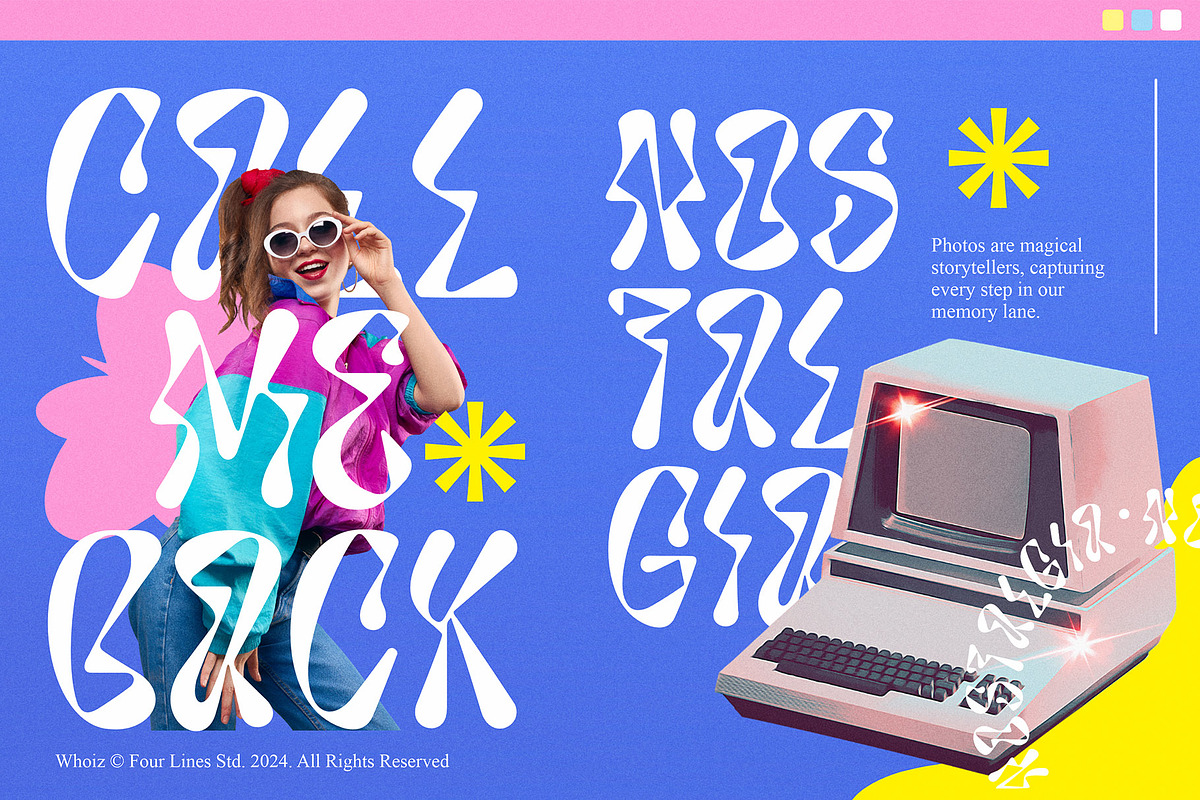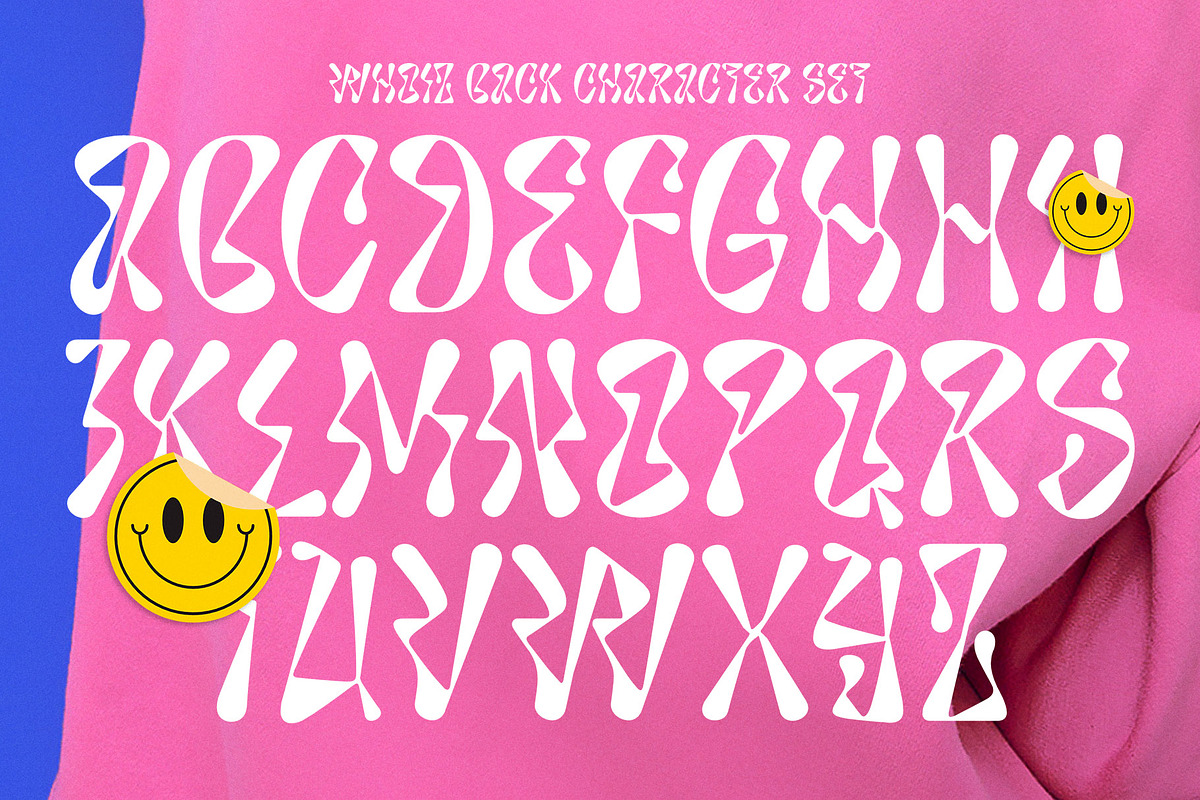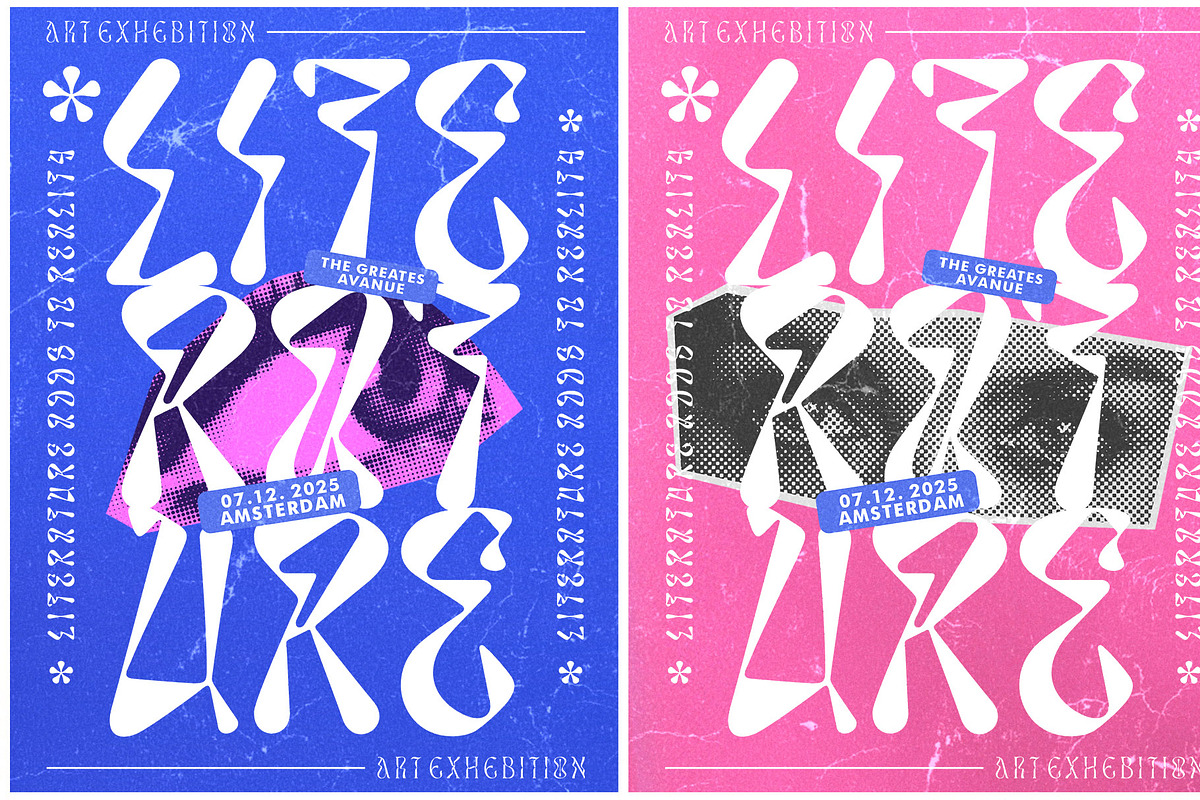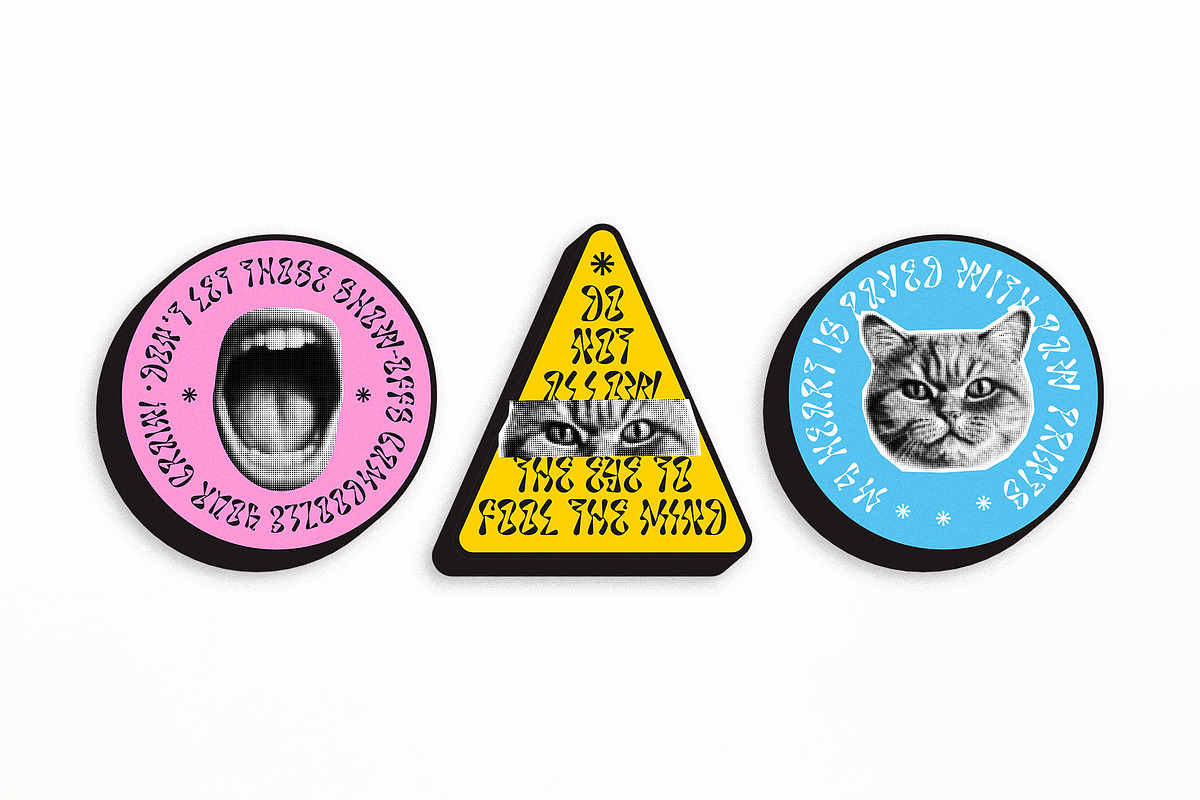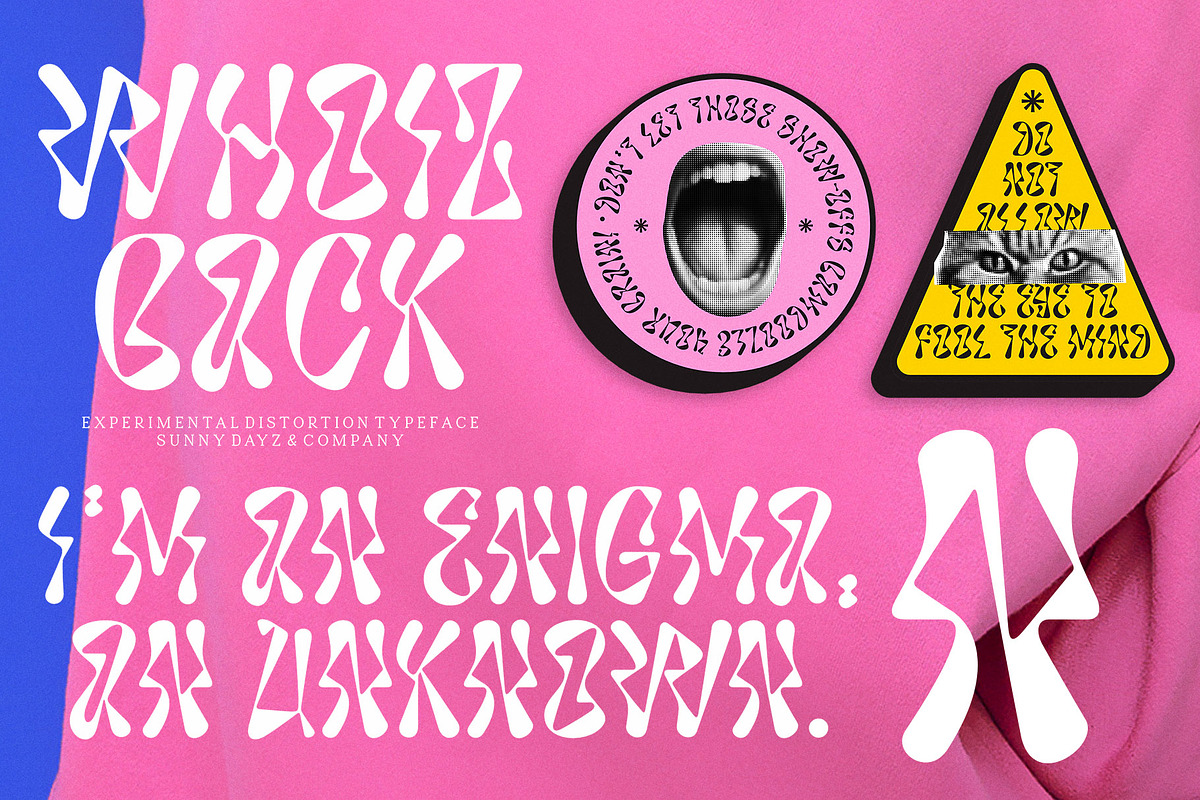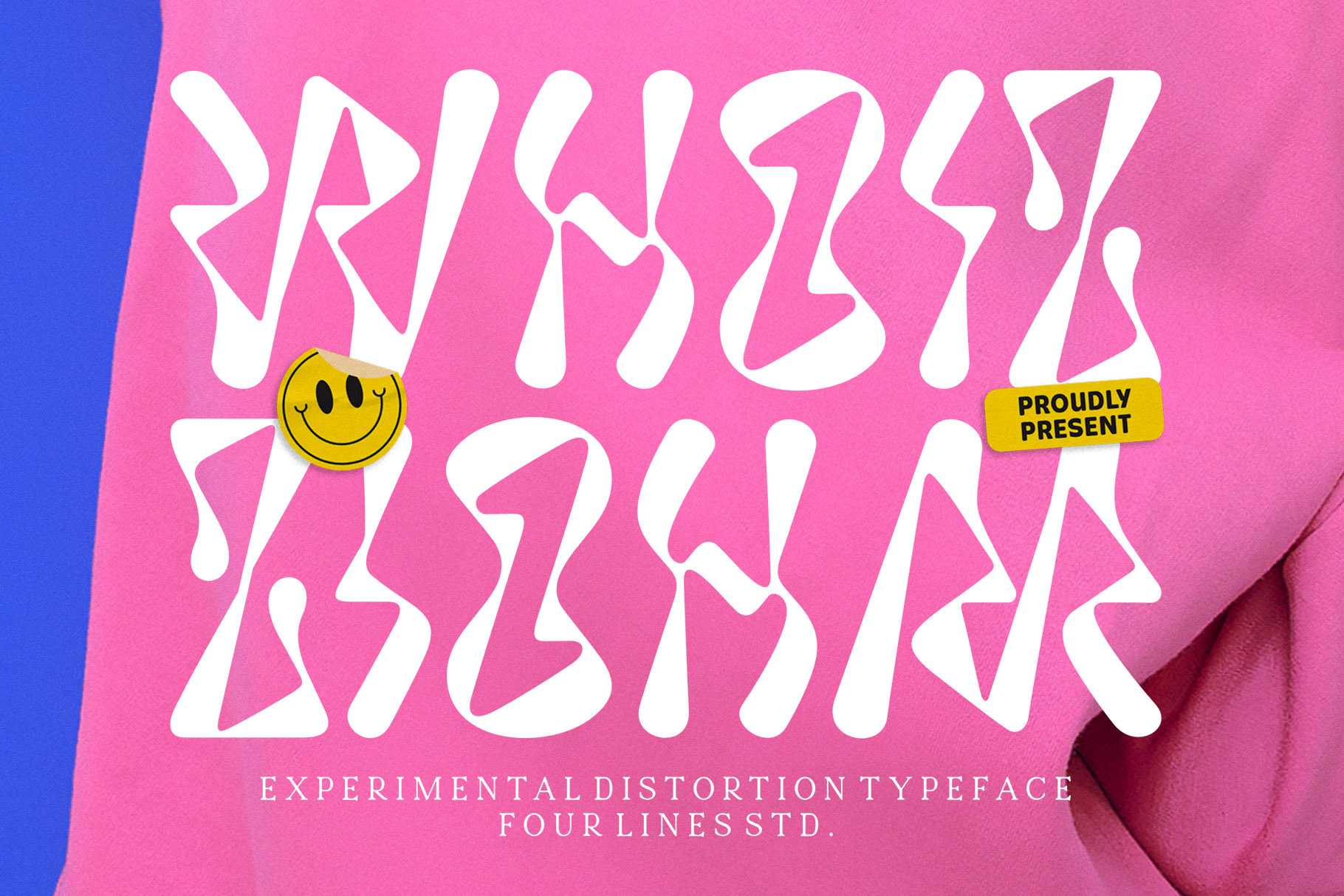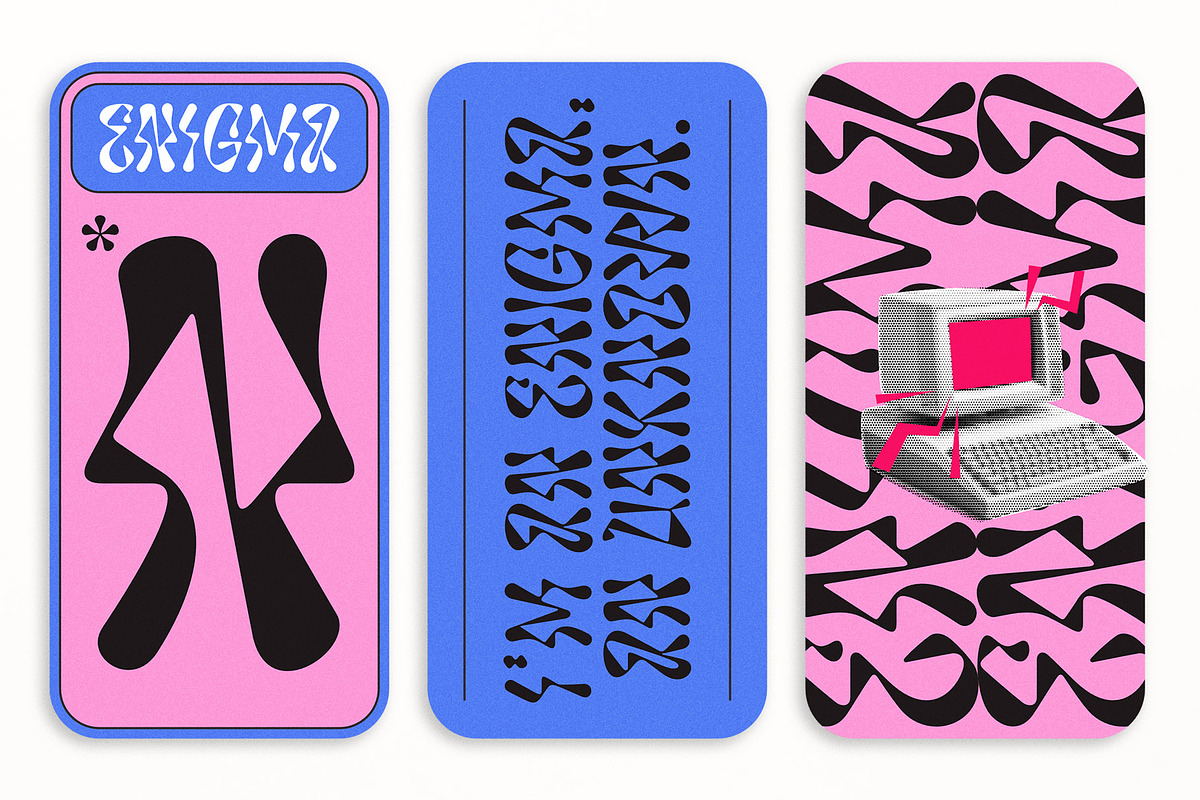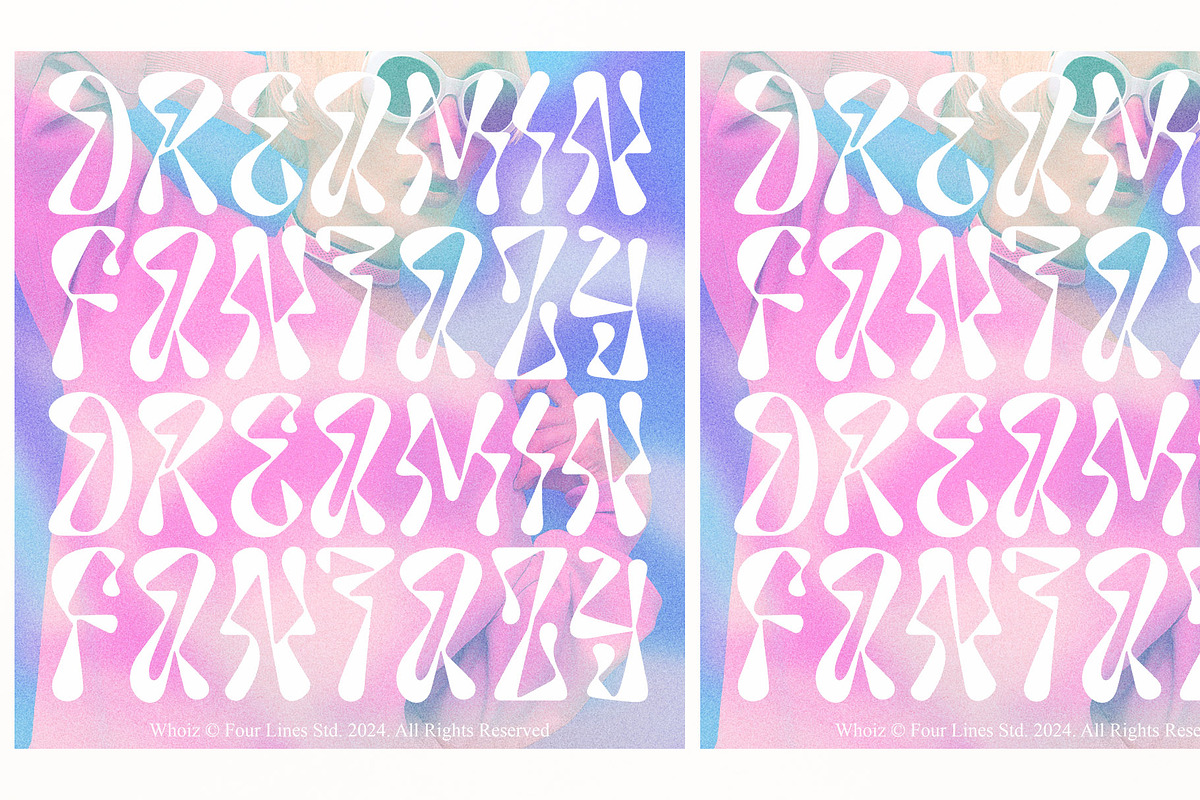
50% Whoiz – Experimental Font
Introducing "Whoiz" – an avant-garde font designed to captivate and engage your audience. This experimental typeface embraces distortion, offering a unique visual experience that keeps readers intrigued for longer periods. Ideal for diverse projects like posters, quotes, stickers, and advertising media, "Whoiz" adds a distinctive touch to your designs, making them stand out effortlessly.